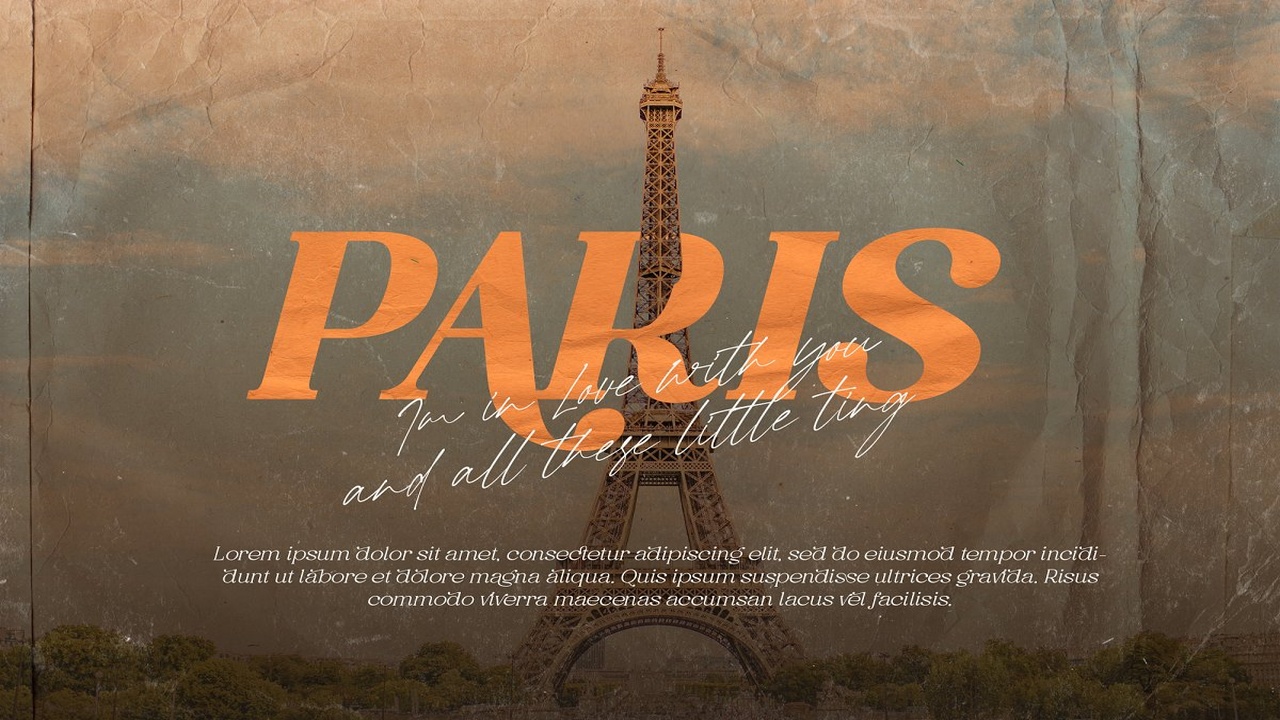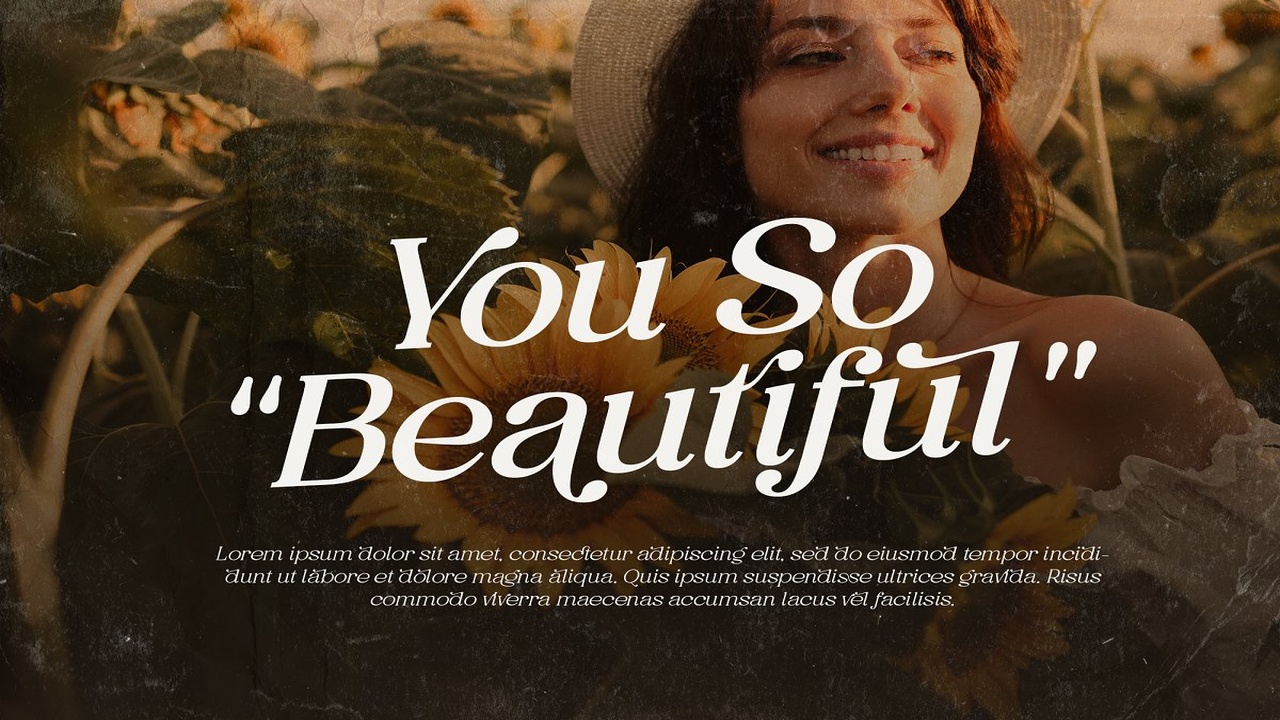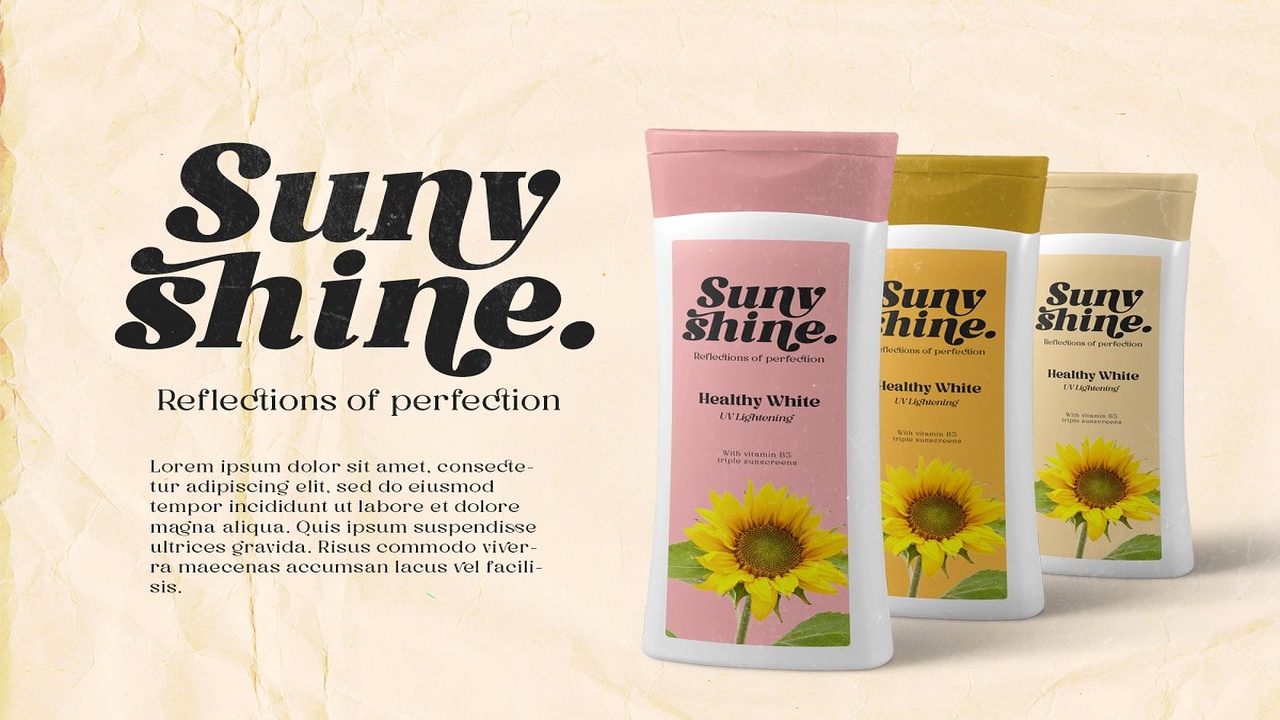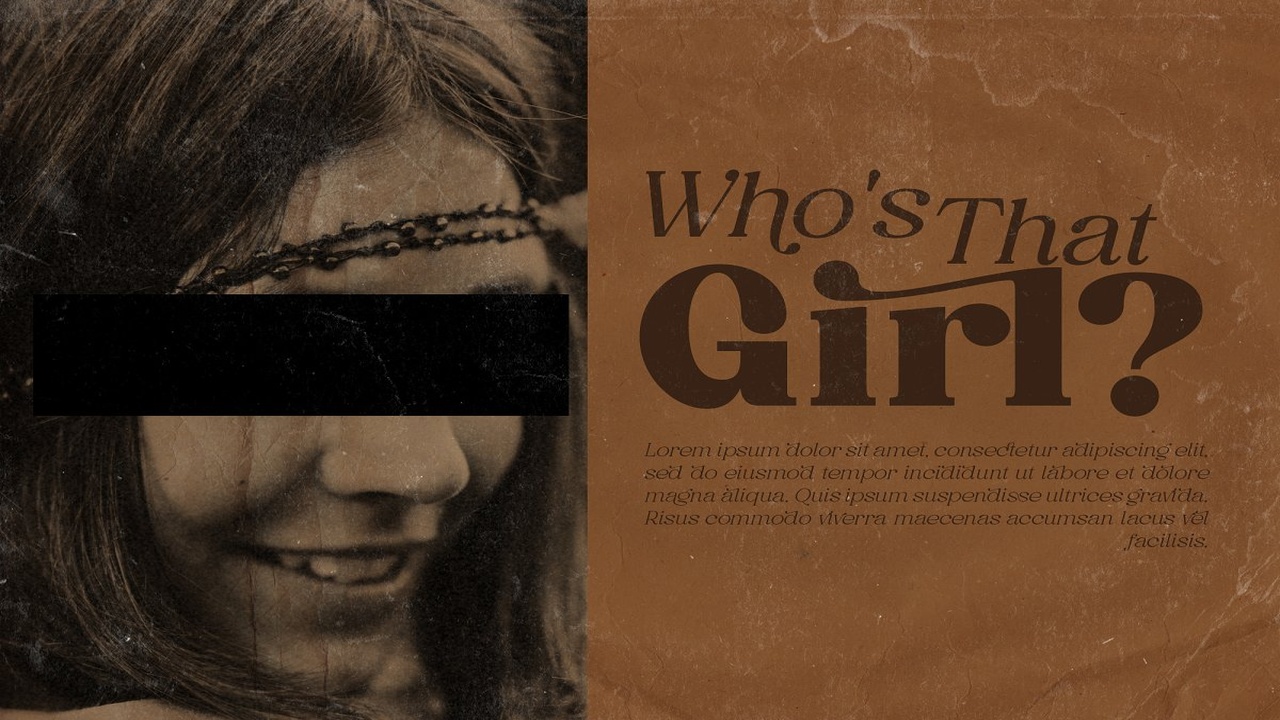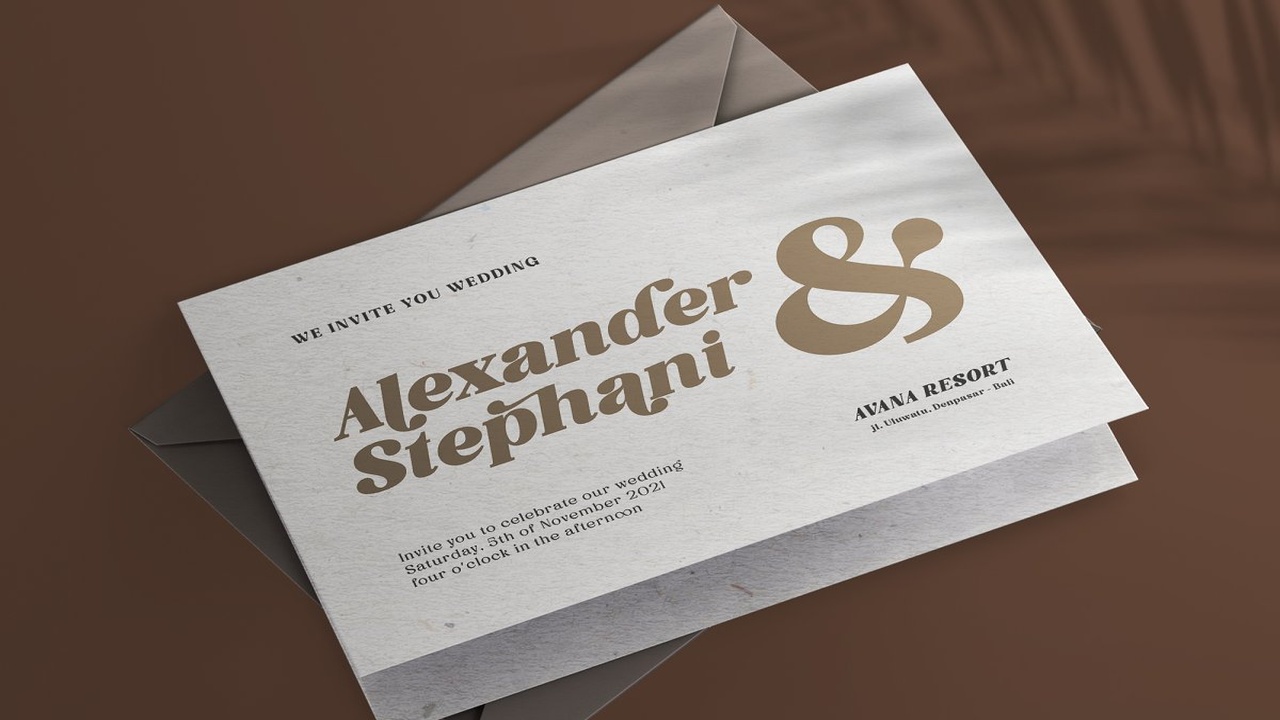
About the Vintage Glamour Font
Vintage Glamour comes with an aesthetic style, and its serif-type tagline is Vintage and elegant, This font comes in eighteen thickness levels, from thin to black, to suit your needs, Vintage Glamour is also equipped with the latest professional characteristics that can present an elegant and attractive identity for your company or project for business purposes
It goes well with modern serifs and scripts that depict or stand firm as titles and brand representatives for an elegant look, Vintage Glamour has 18 font styles ranging from thin to regular and italic, This will go a long way in creating the perfect impression, giving you many options you’ll want to use in each design
Vintage Glamour also comes with multiple languages, making any country and language easy to use, It also comes with alternative Ligatures and styles to make your designs more attractive, Vintage Glamour is suitable for branding projects and various design purposes such as business cards, name tags, and uniforms as a brand enhancement